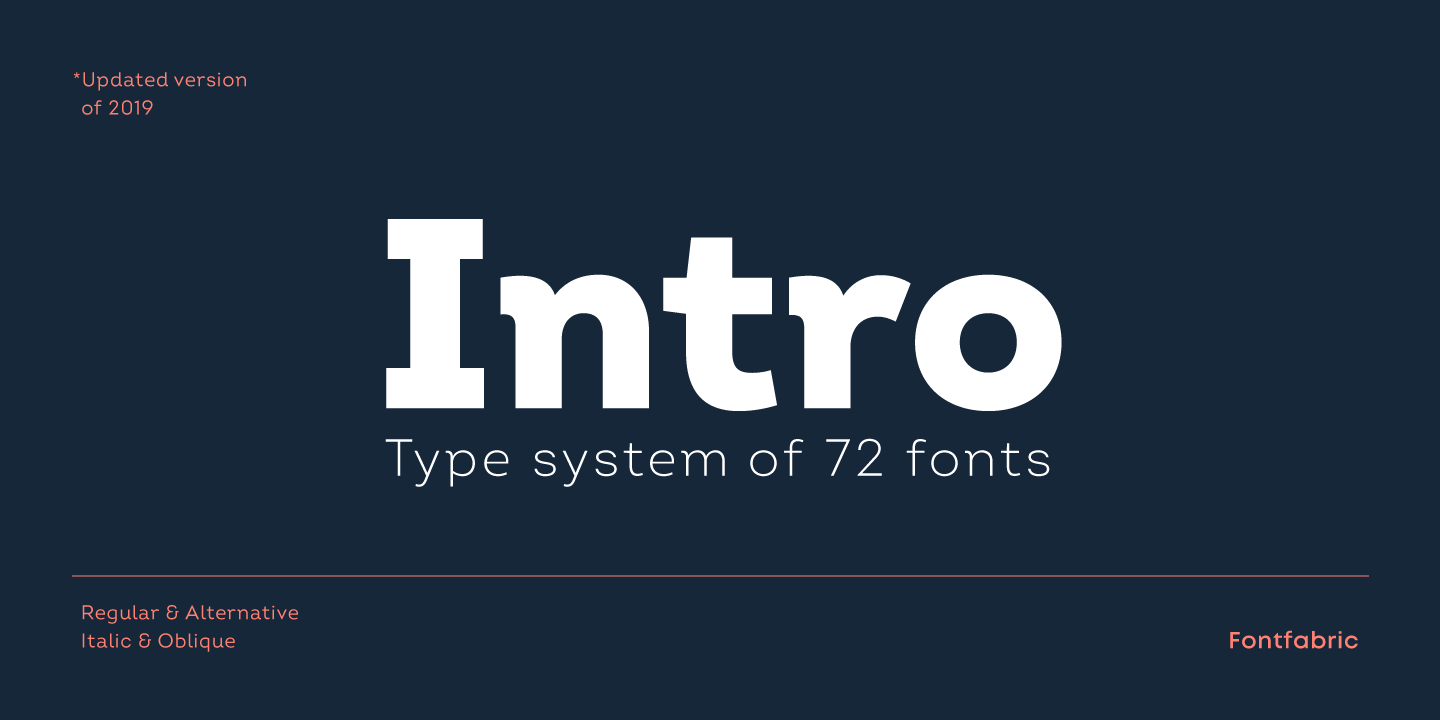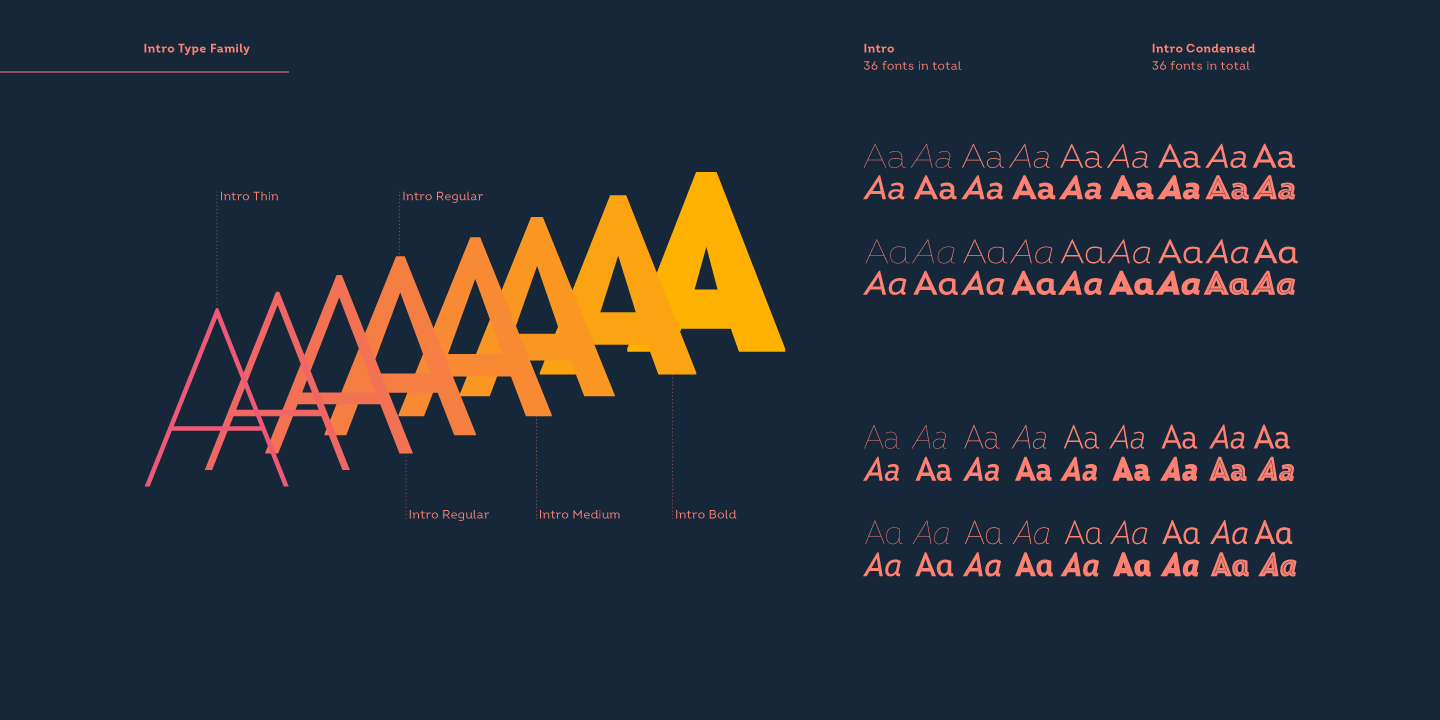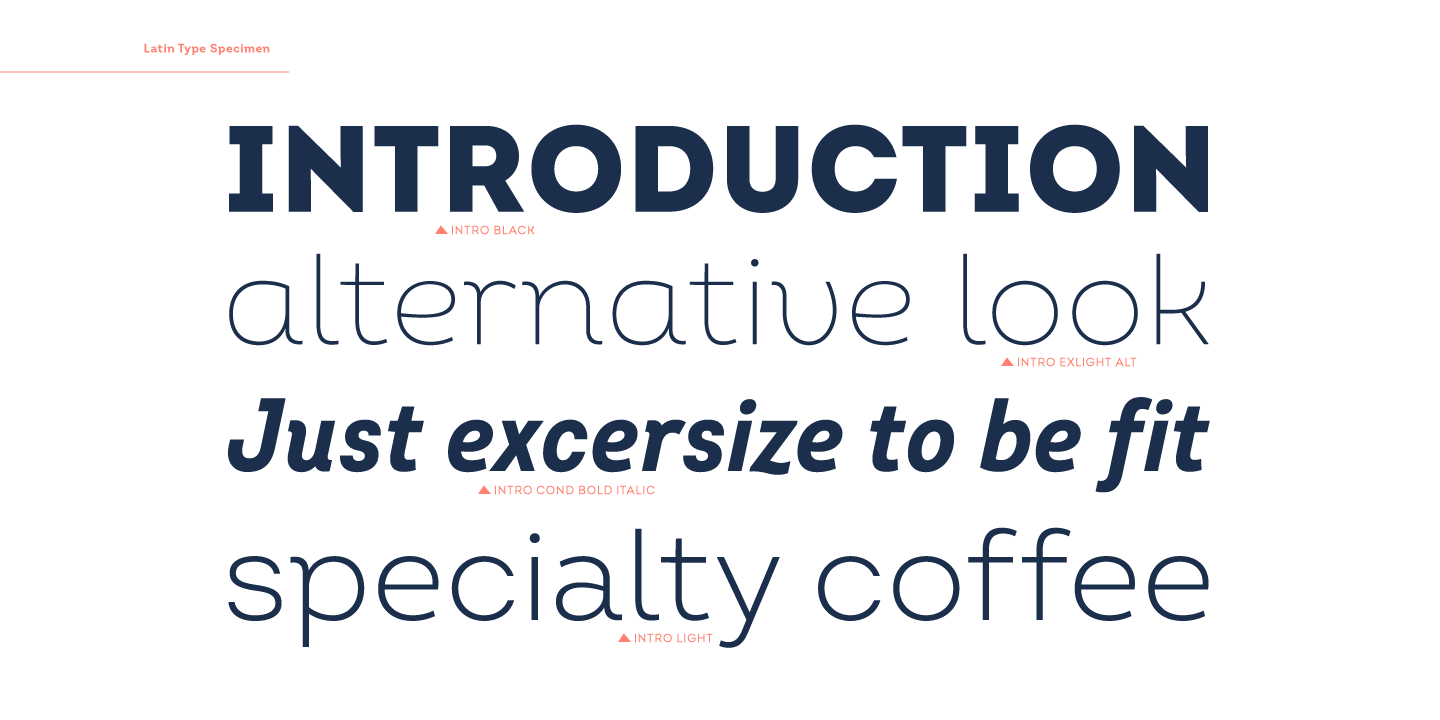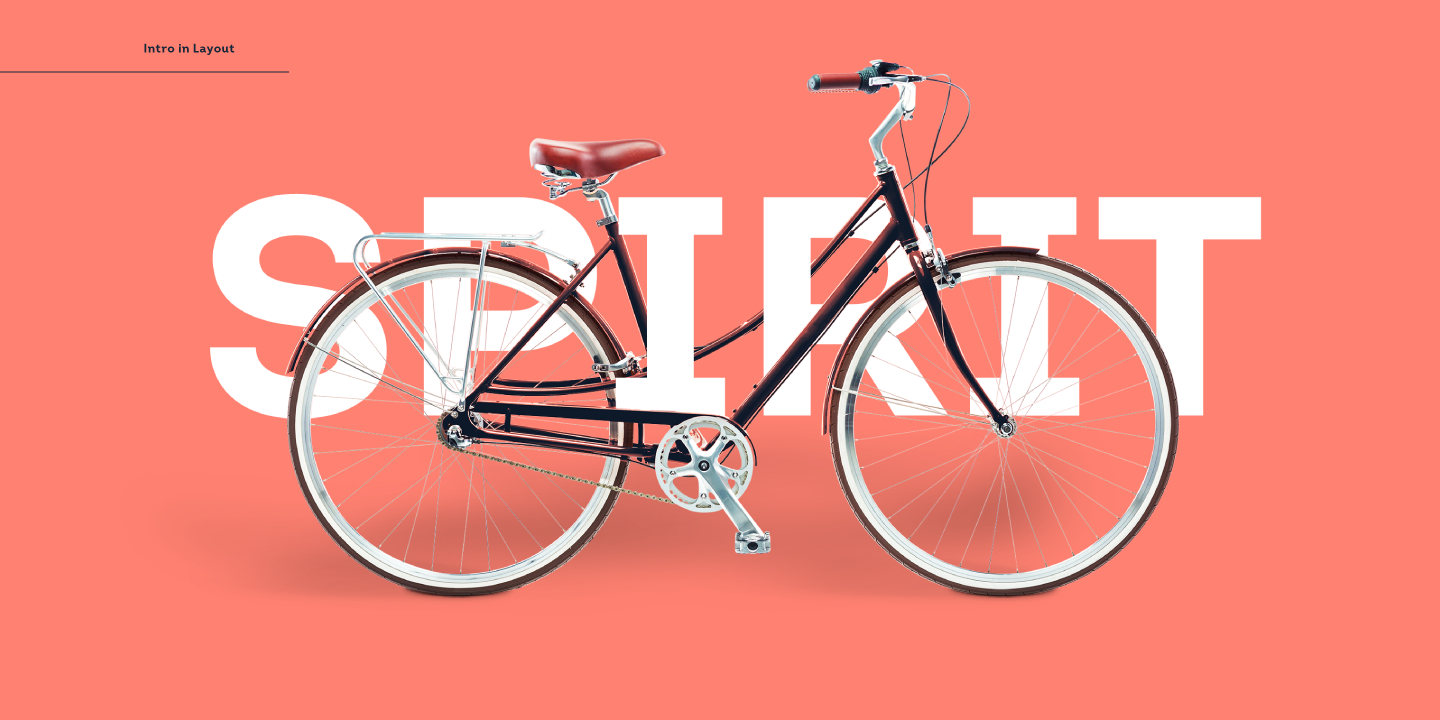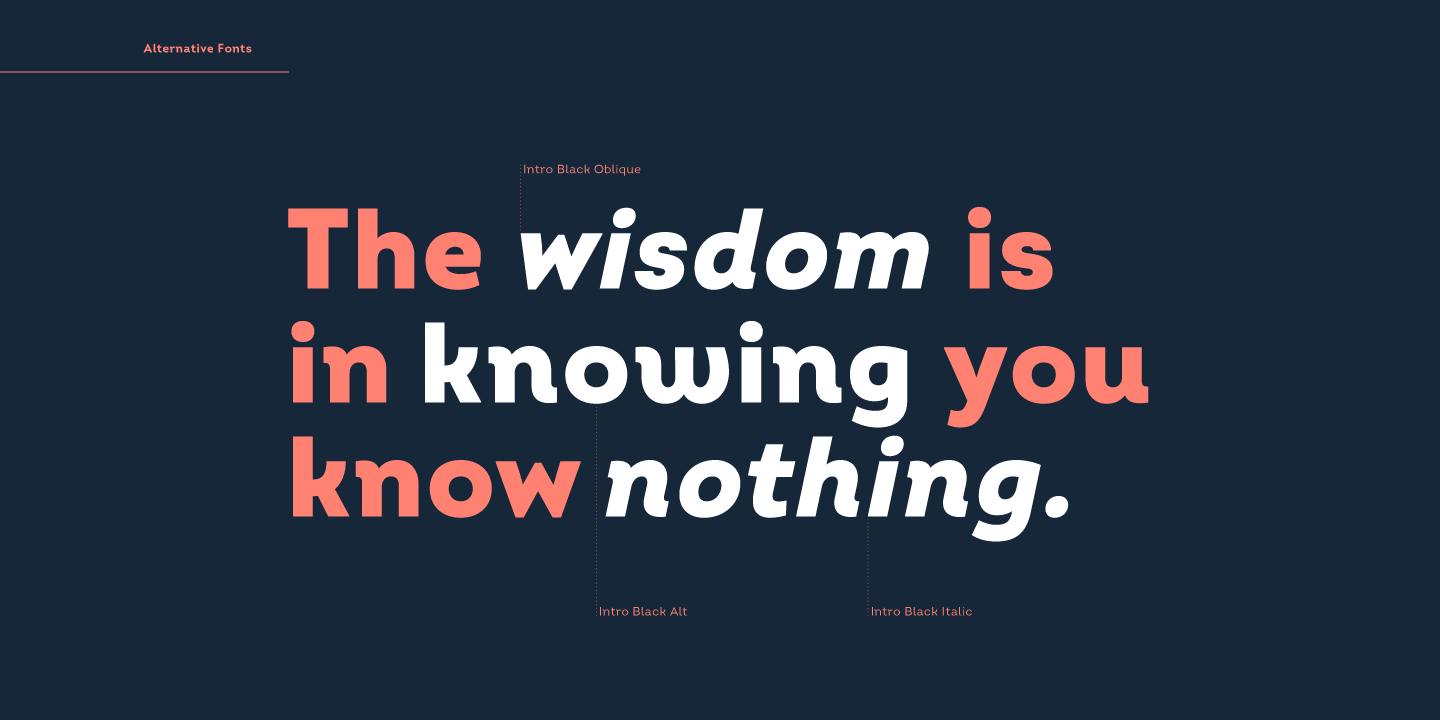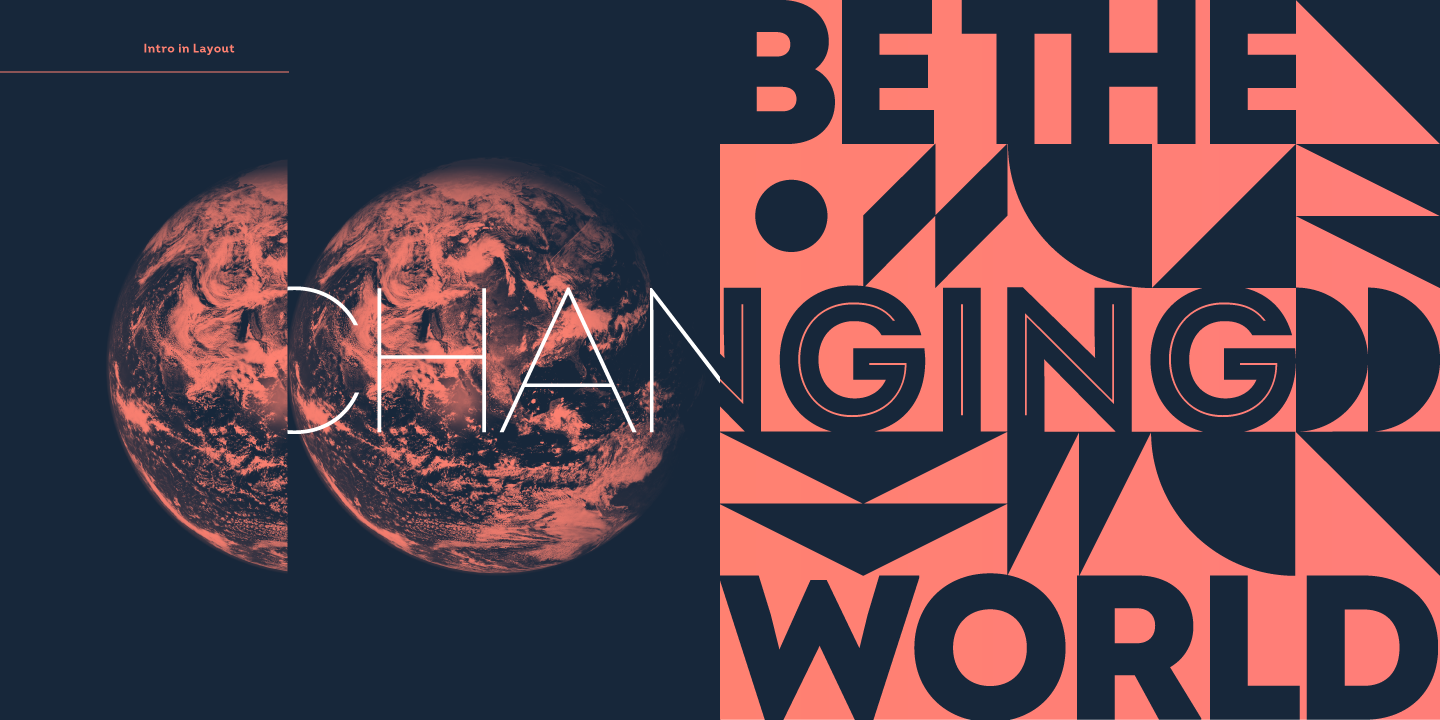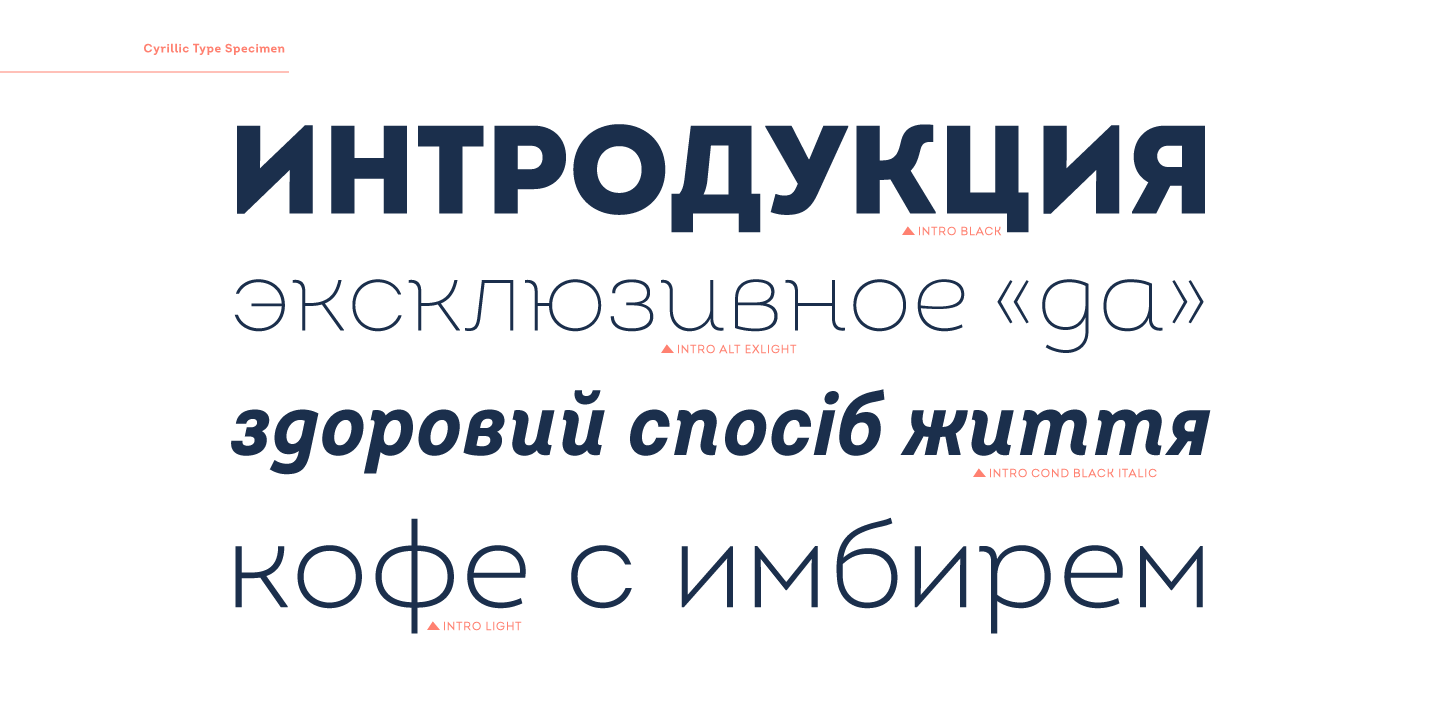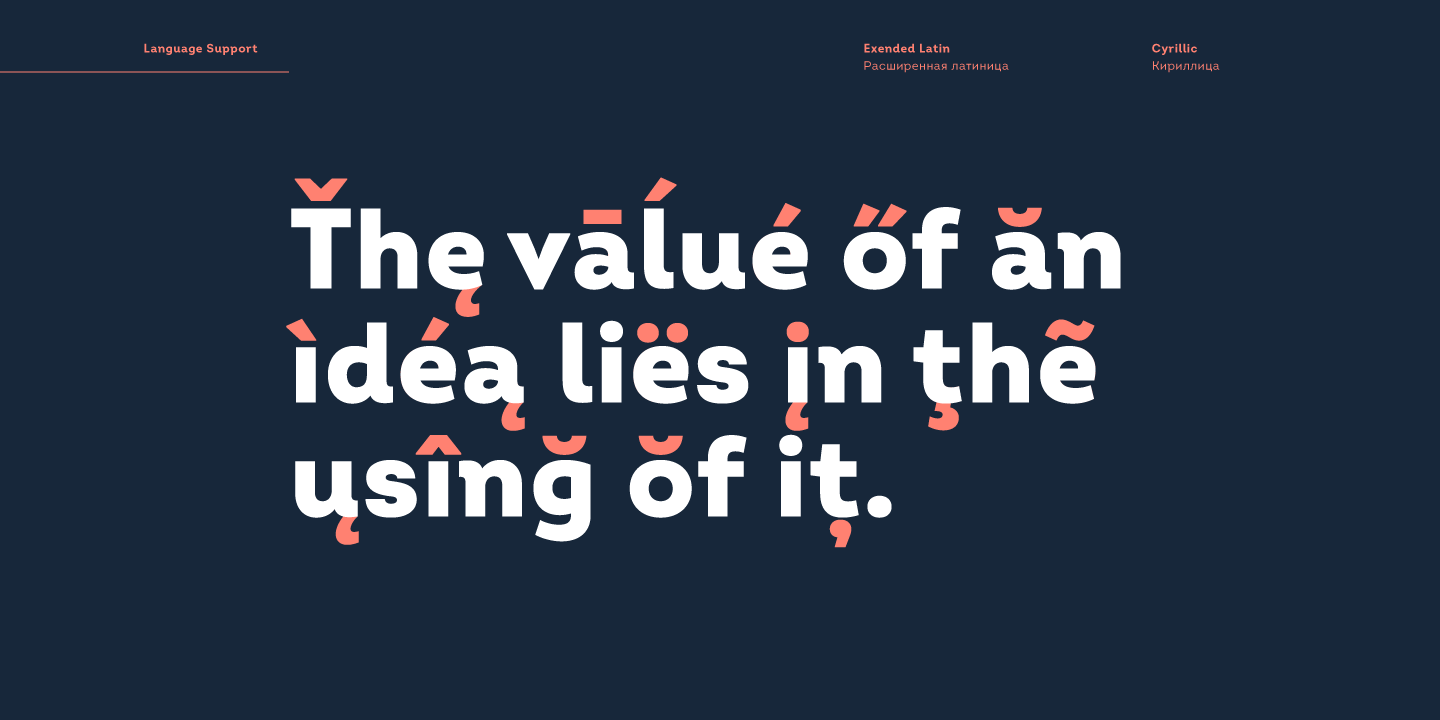
About the Intro Font
About Intro Font Family Let us introduce you the official big update of Intro type family with essential upgrades to this contemporary sans serif, The weight distributions completely revised has brought 8 new weights and matching italics resulting in 72-fonts family with 22 fonts extra, Intro’s refined playfulness is further emphasized with additions of multiple ingredients, such as carefully adjusted Oblique alternatives next to the existing upright alternatives
All these styles are now available as a Condensed version, On top of that, there are 3 inline fonts, The glyph case was expanded to cover Extended Latin and Cyrillic with adequate language localization, The OpenType features rewritten and improved now allow case-sensitive forms and contextual alternates, and plenty of stylistic alternates
The standard numerals set includes as well tabular figures and symbols, superiors and inferiors, numerators and denominators, plus fractions, Designers: Svetoslav Simov, Stan PartalevPublisher: FontfabricFoundry: FontfabricDesign Owner: FontfabricMyFonts debut: Apr 4, 2012 Intro™ is a trademark of Fontfabric